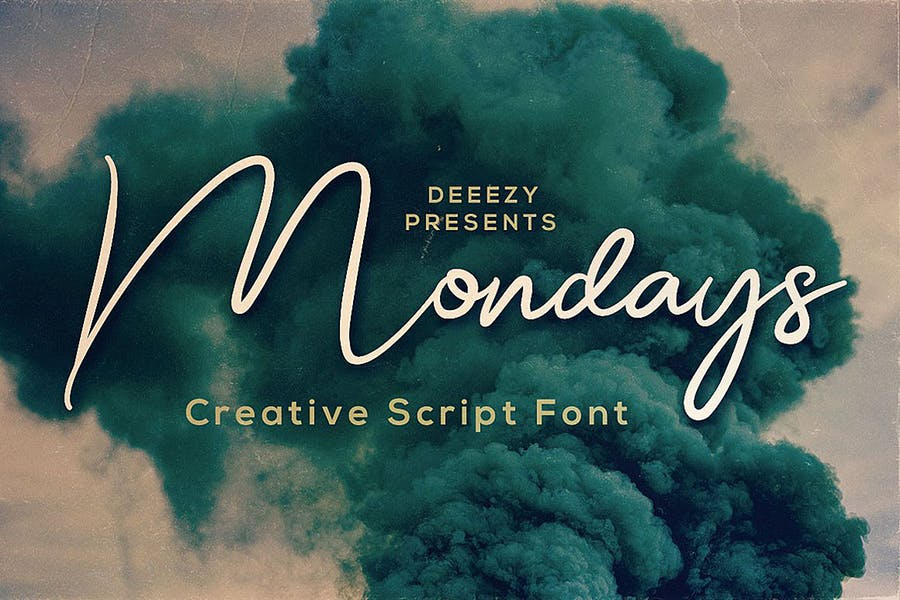
Mondays Script Font
Mondays Script Font is perfect for motivational coaching brands, inspiring workplace communications, energizing coffee shop branding, uplifting productivity apps, positive Monday morning campaigns, encouraging office signage, weekly planner designs, motivational social media graphics, inspiring wellness centers, and empowering lifestyle brands.
Mondays Script Font creates excitement because it embodies the fresh energy and optimistic spirit of new beginnings with its flowing script letterforms and motivation-inspired character design. The font's uplifting curves and energetic aesthetic instantly convey positivity and weekly renewal, making any brand appear encouraging and authentically motivating. Its carefully crafted inspirational details and fresh-start character create an immediate sense of weekly optimism that captivates audiences seeking motivational experiences, positive energy, and products that celebrate the transformative power of embracing Monday as a fresh opportunity for growth and achievement.
The Mondays Script Font family includes multiple weights and styles: Regular, Bold, Light, Medium, Italic, Condensed, Extended, Energetic, Optimistic, and Fresh versions. Each variant maintains the font's signature motivational character while offering different levels of energetic styling and inspirational authenticity suitable for various workplace and motivational applications.
This inspiring typeface brings the authentic spirit of Monday motivation into contemporary design with remarkable energy and optimistic appeal. Mondays Script Font Free Download provides motivational brands and workplace organizations with access to premium inspiration-focused typography that embodies the essence of weekly renewal and positive energy. The font's uplifting design and motivational authenticity make it ideal for businesses seeking to establish meaningful connections with professional audiences and motivation seekers who appreciate positive workplace culture, weekly inspiration, and the transformative power of starting each week with enthusiasm and optimistic determination. Whether you're creating branding for productivity companies, designing materials for workplace wellness programs, developing communications for motivational platforms, or producing content for inspiring lifestyle brands, this font delivers the energetic Monday atmosphere that resonates with audiences seeking genuine motivation, weekly inspiration, and the positive energy that comes from embracing Monday as a powerful opportunity for fresh starts. Its versatile design ensures outstanding performance across both inspiring printed materials and energetic digital platforms while maintaining the character of authentic motivational typography. The font excels in applications requiring workplace credibility and motivational appeal. Professional development experts appreciate its ability to convey Monday enthusiasm while remaining highly functional for various workplace communications and motivational promotional materials. The comprehensive character set includes inspirational symbols and extensive international language support, making it perfect for global productivity brands and international workplace organizations seeking to communicate authentic Monday motivation, weekly inspiration, and positive energy to diverse worldwide audiences who embrace professional growth, seek weekly motivation, and value the transformative power of genuine Monday enthusiasm that turns the beginning of each week into an opportunity for achievement, growth, and positive transformation through optimistic planning and energetic execution.